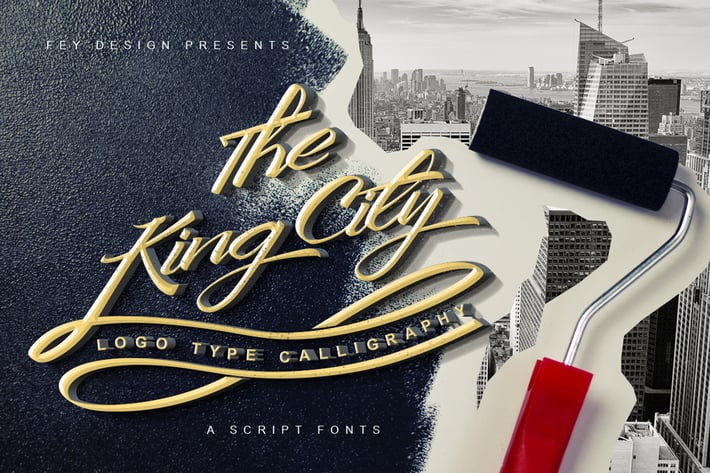
King City - Script Font
King City
Suitable for design, element design, wedding, event, t-shirt, logo, badges, sticker, and awesome work, etc...
- Combination alternative ligature fonts
- Standard Ligatures, Stylistic Set, Stylistic Alternate, Decorative And Swashes
- Modern Calligraphy Typeface
- Unique style fonts